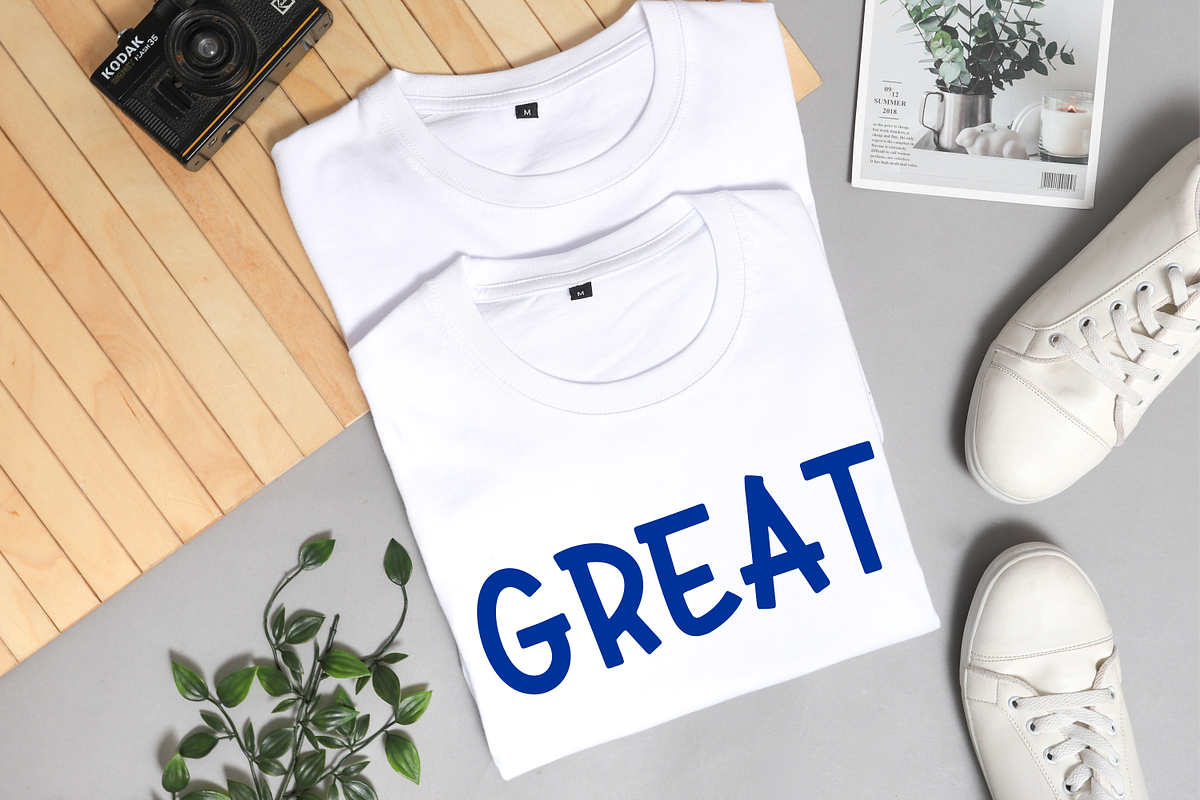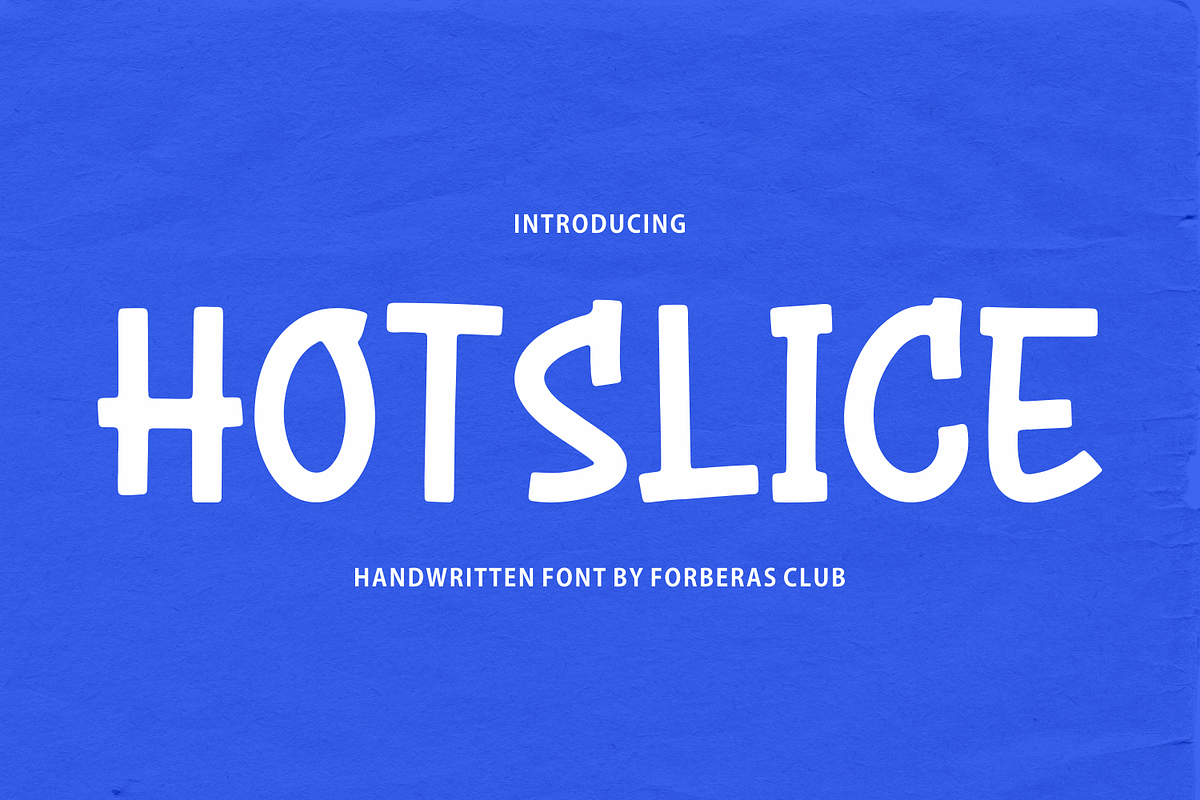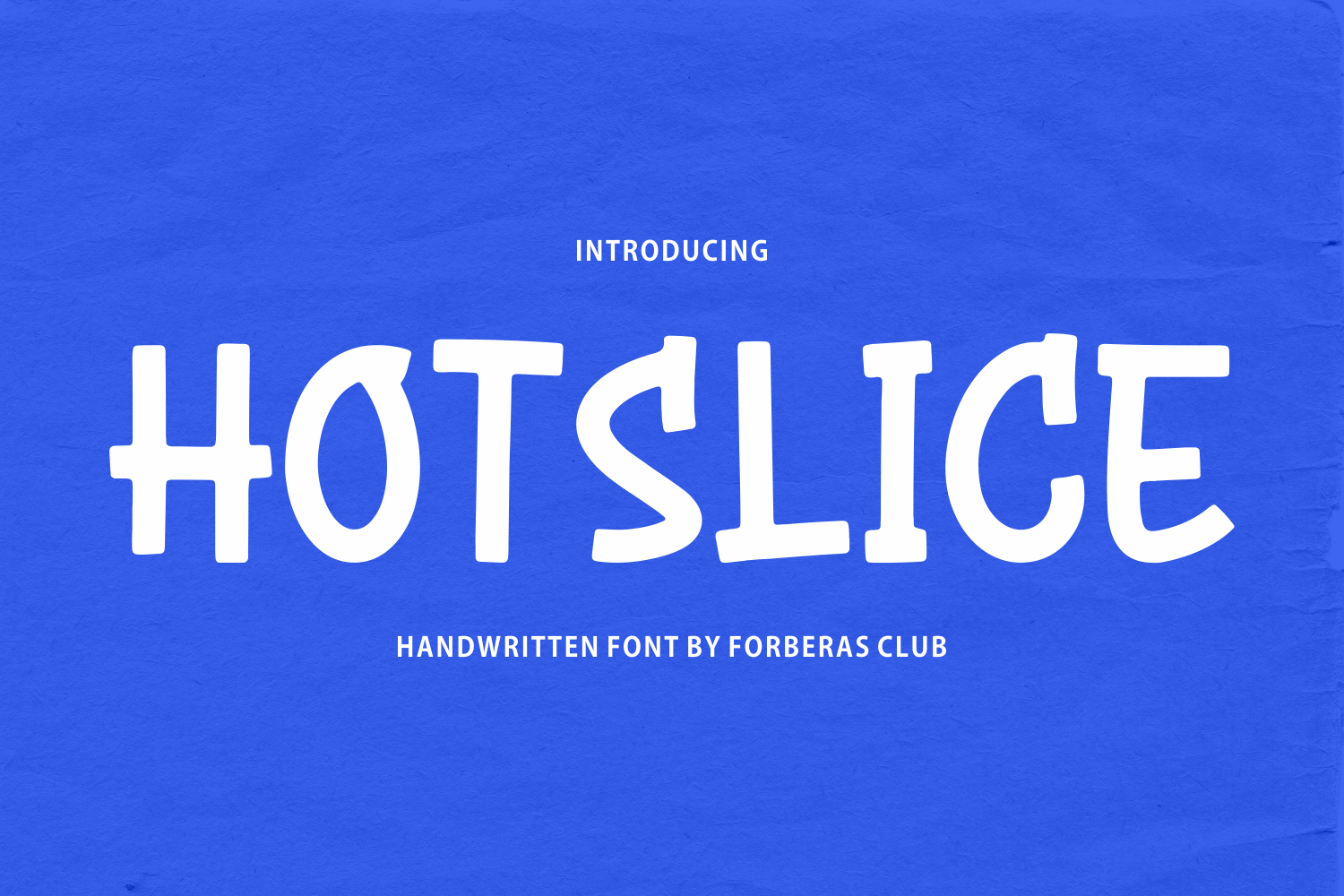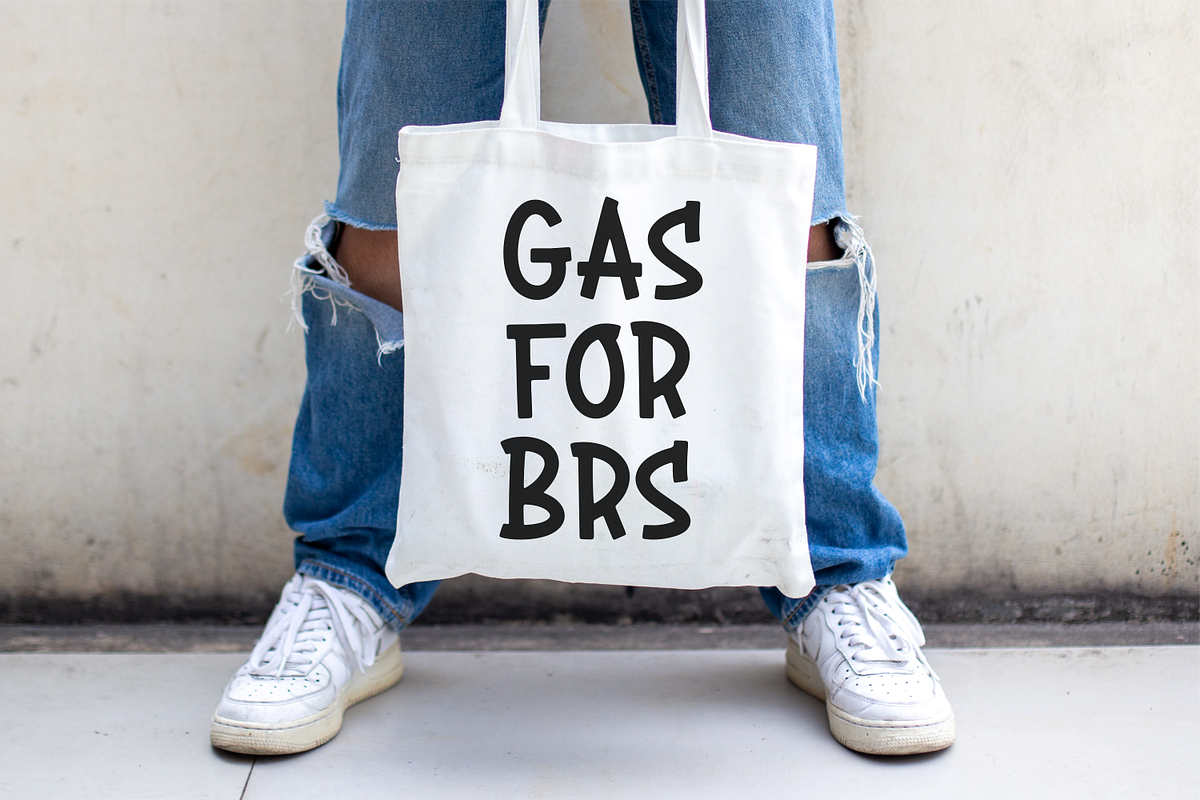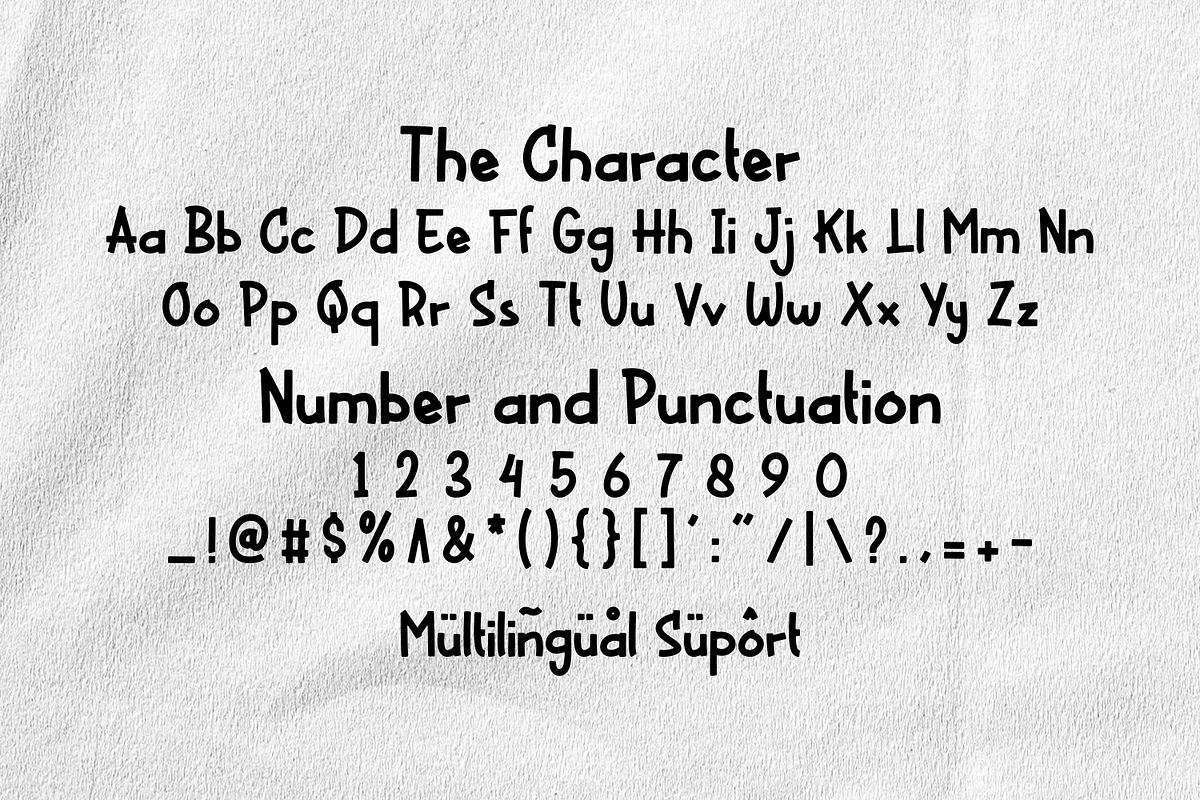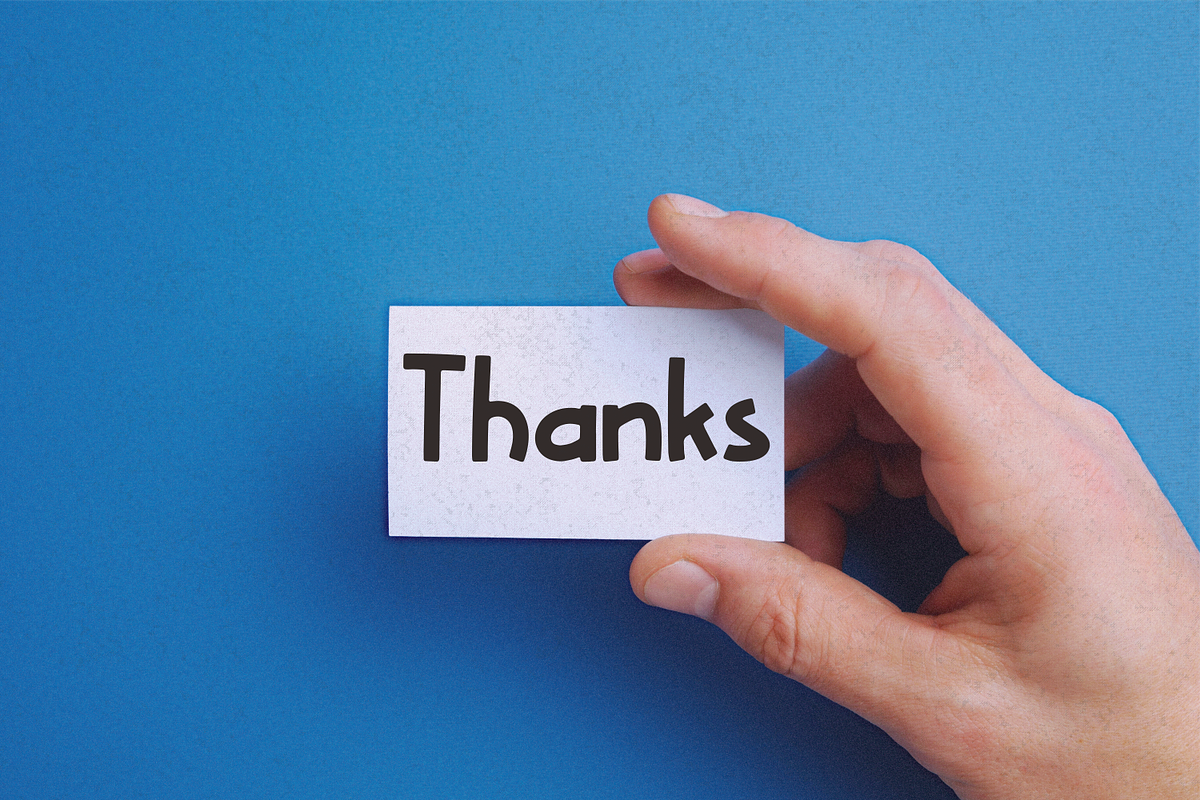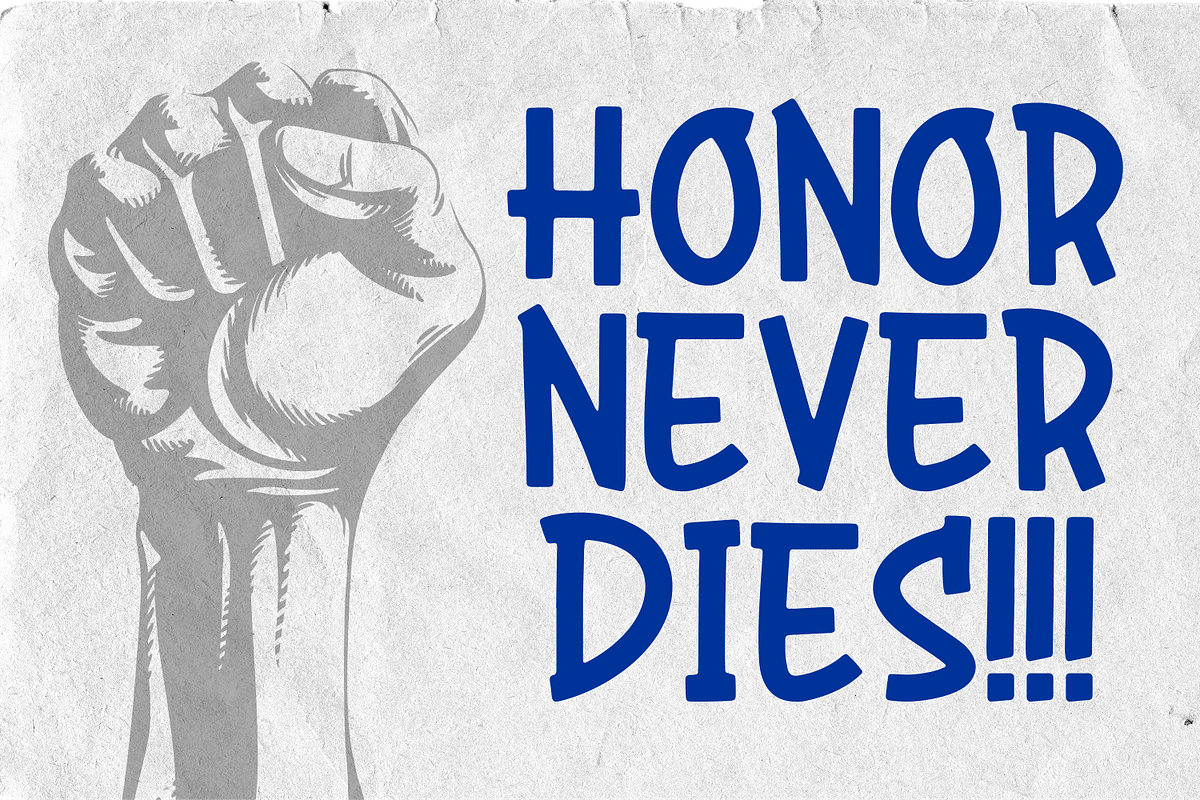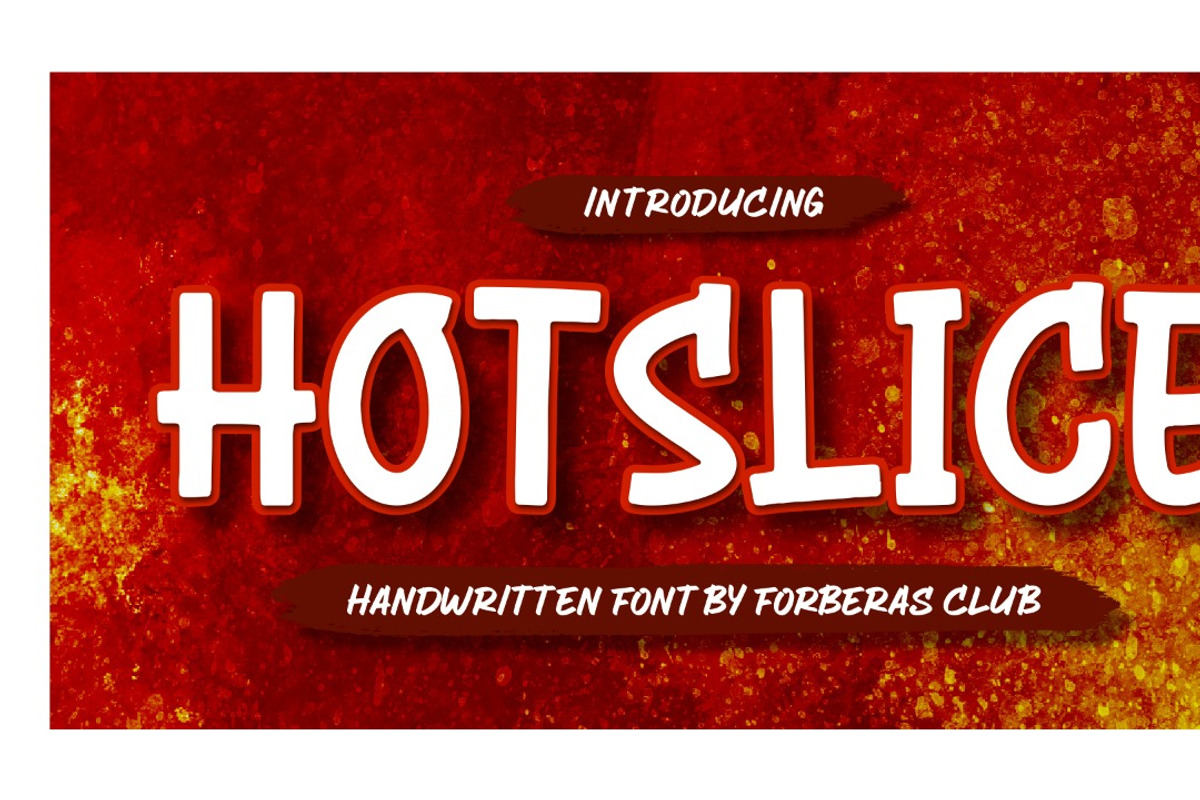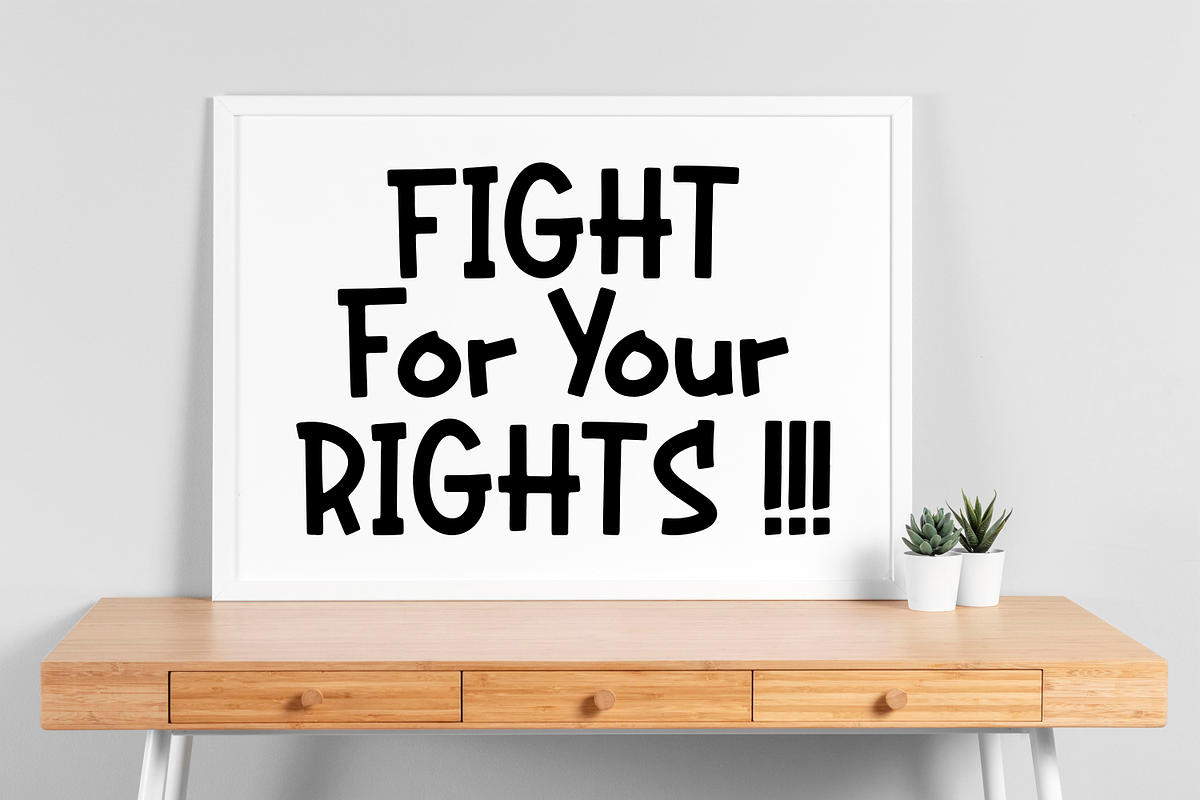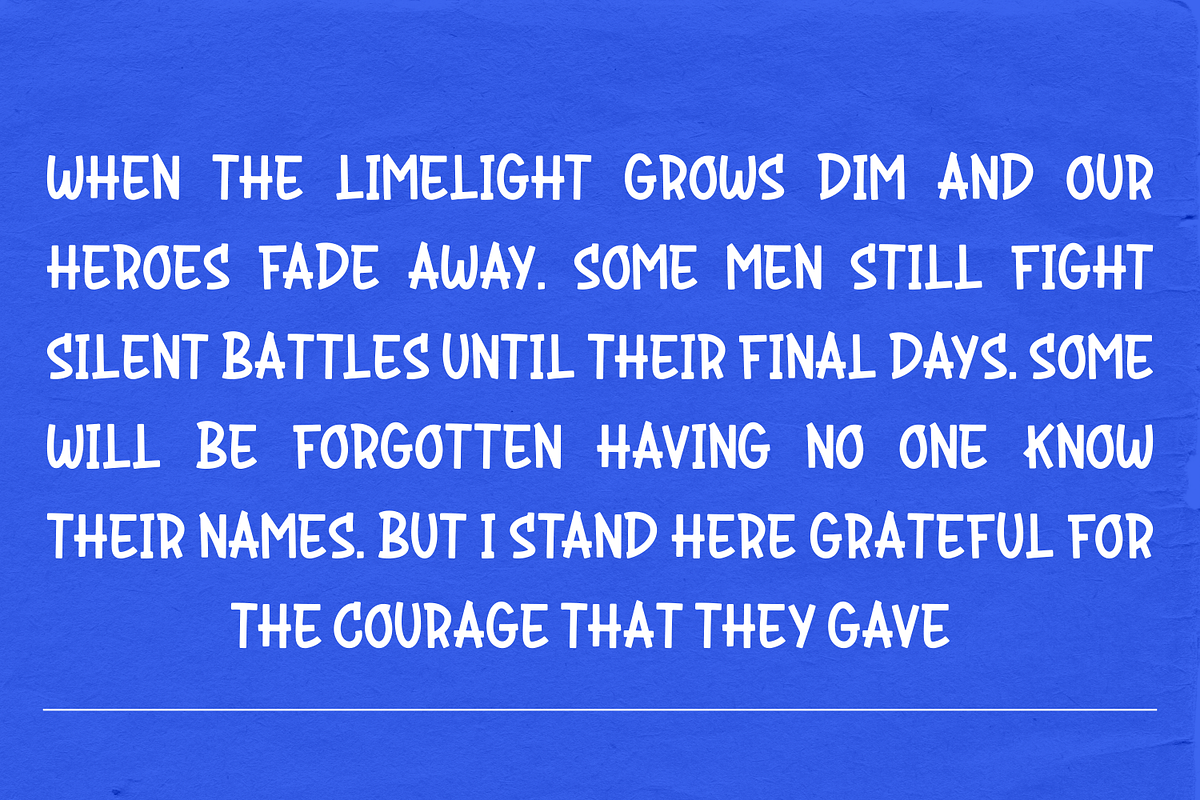
Hotslice | Handwritten Font
Introducing Hotslice by Forberas
Modern and beautiful handwritten script font! Great for wedding greeting cards, logos, branding materials, Invitation, business cards, quotes, posters, Cricut artwork and more!